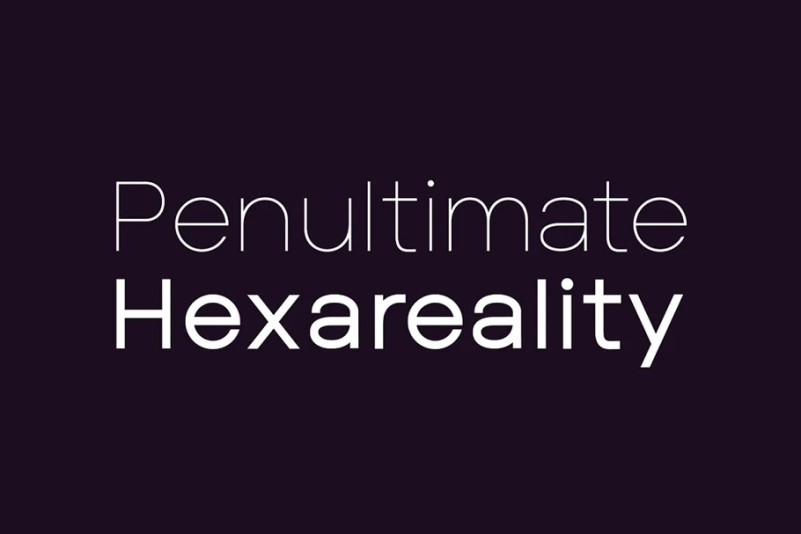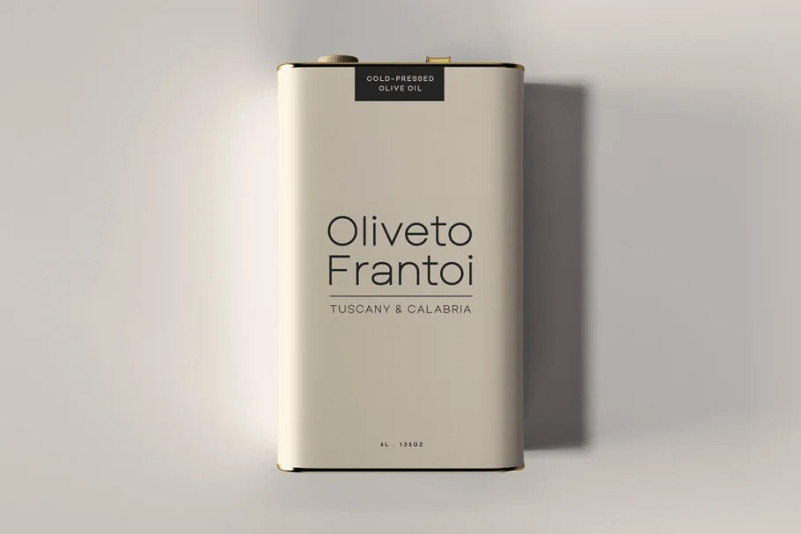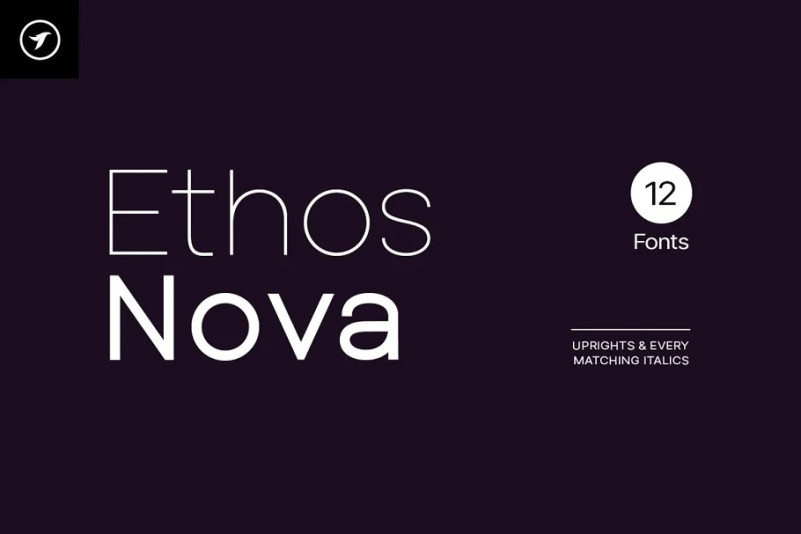
Ethos Nova Font
Ethos Nova Font is a minimalist neo-geometric sans-serif typeface family of 12 fonts featuring the finest design inspired by the simple and clean design approach of the modern era. The typeface is made with a special focus on minimalism and simplicity in typography, this typeface can transform your design projects to another level of visual appeal.
Handcrafted and designed with powerful OpenType features in mind, each weight includes extended language support including Western European & Central European sets. A total of 312 glyphs are included.
Ethos Nova is a perfect choice for graphic design, text presentation, web design, print and display use. The typeface can be an amazing option for branding, logo / logotype design projects, marketing graphics, banners, posters, signage, corporate identities as well as editorial design. Adding extra letter-spacing for the Caps will make this font perfect for minimal headlines and logotypes,